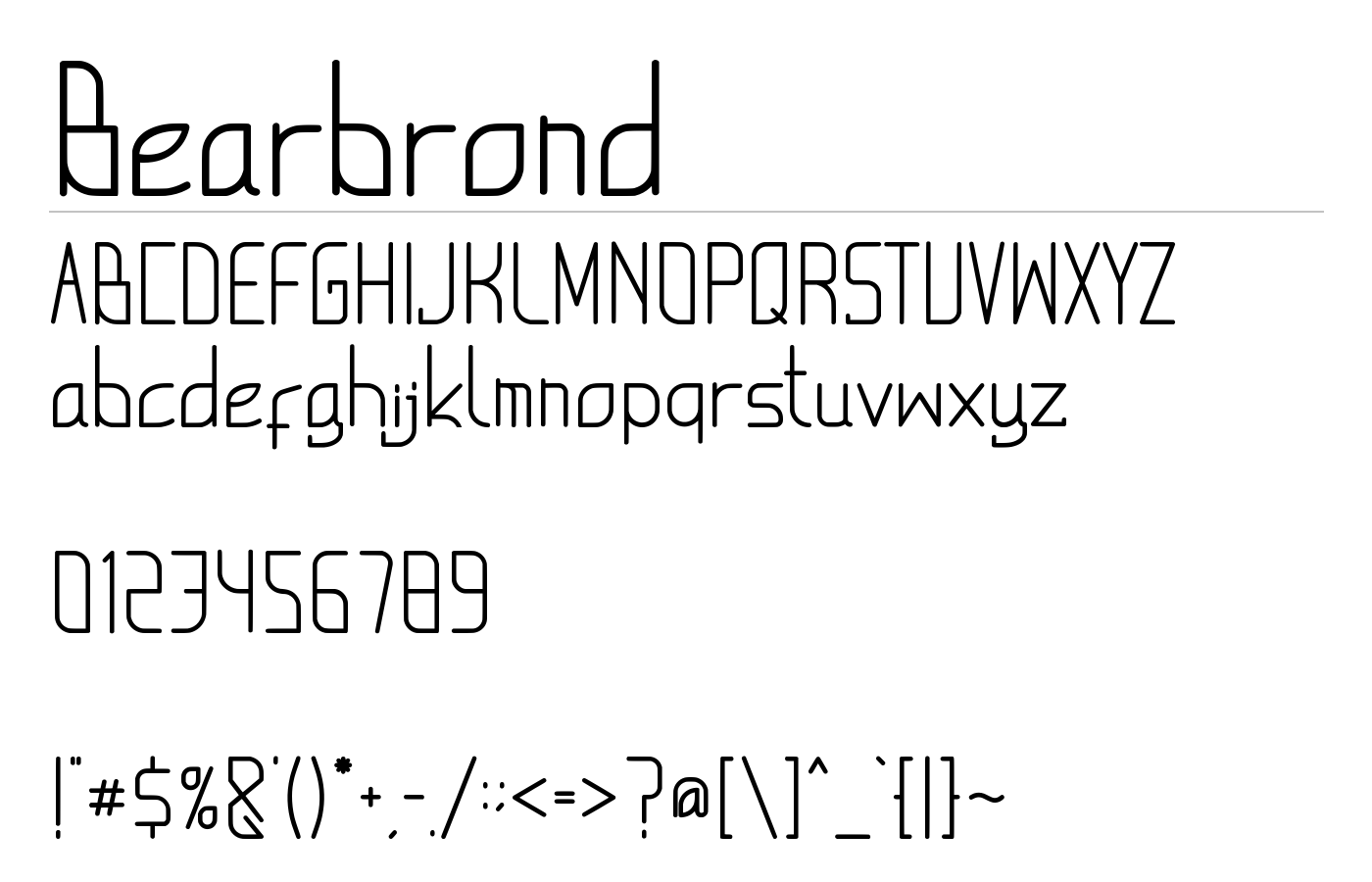
Bearbrond is a narrow, modern sans serif font characterized by its thin, uniform strokes and tall, condensed letterforms with a slightly rounded geometric style. Its clean, minimal lines and unique details like the curved terminals and single-story letters give it a contemporary, tech-inspired feel, making it ideal for sleek branding, futuristic designs, and digital interfaces. This font works well in headlines, logos, and creative projects where a modern, elegant, and slightly playful look is desired.
Bearbrond Font
About Bearbrond Font
| Font family | Bearbrond Font |
| Designer | Masyafi Studio |